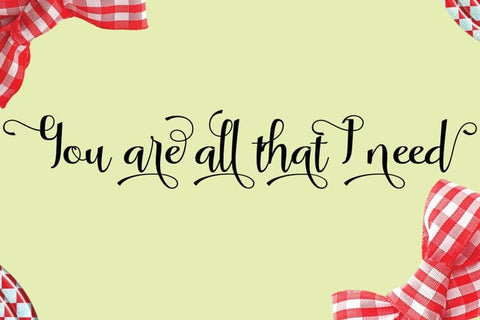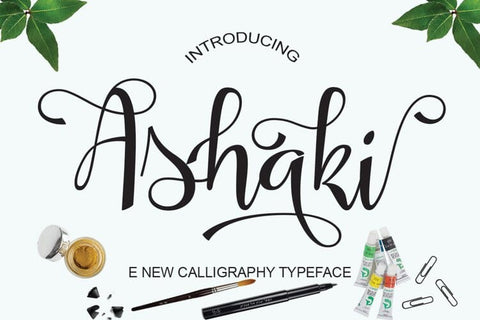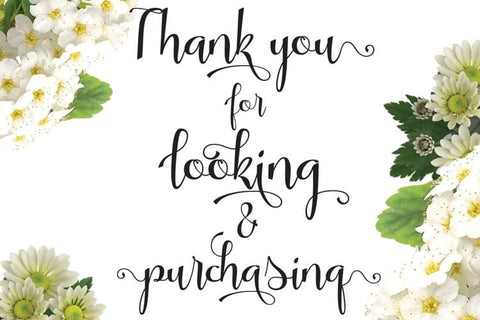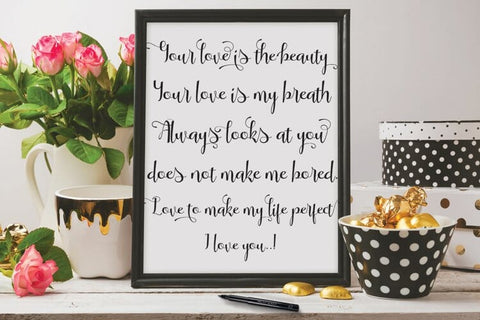
Ashaki
Ashaki Modern Calligraphy. This font was designed by handwriting, and it has a modern and unique forms of calligraphy, the writing style is very natural.
The Features of this fonts is;
* Standart ligatures
* Stylistic Alternates
* Contextual Alternates
* Stylistic sets